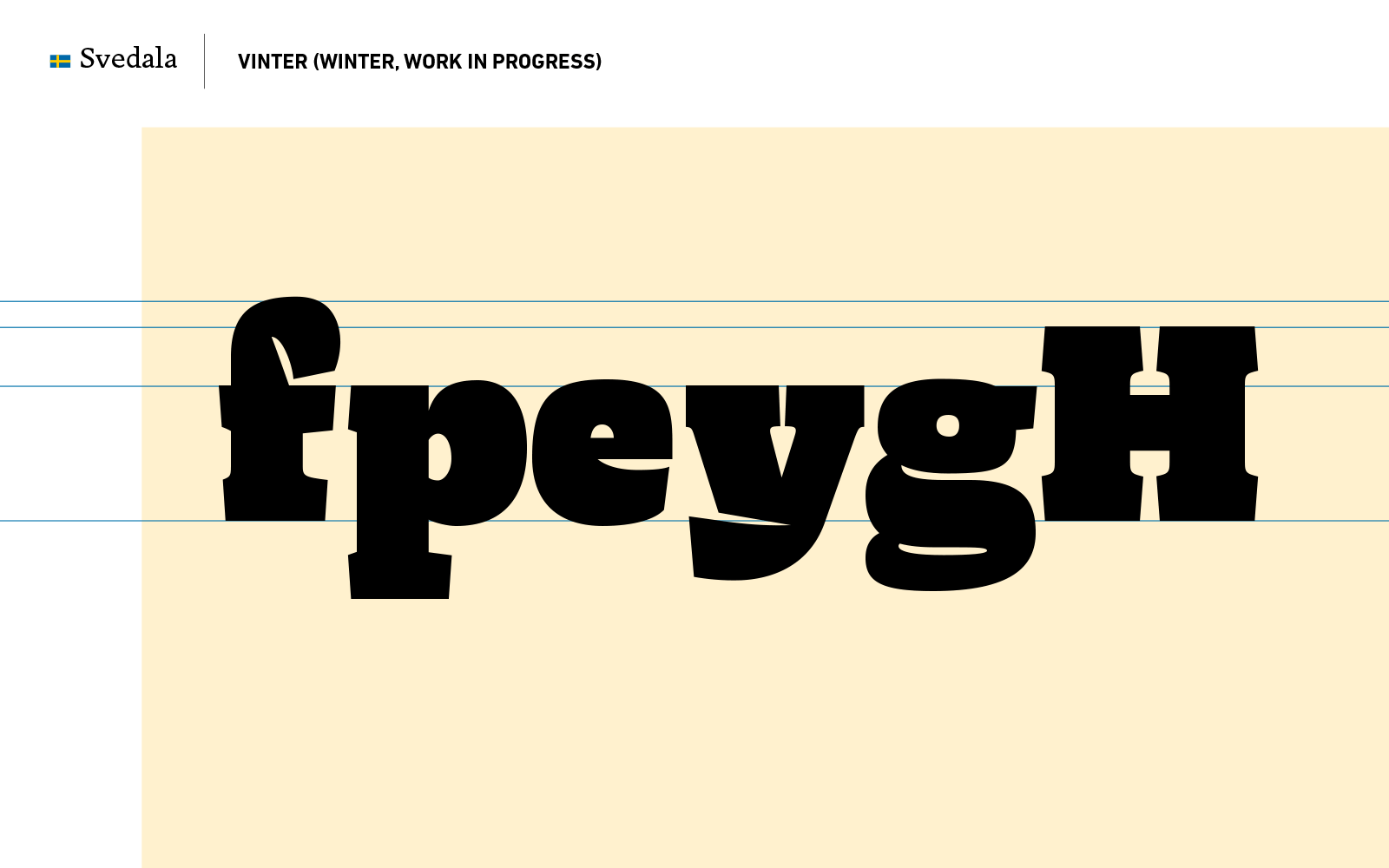
Svedala
Svedala is type family attempting to reflect the contrast between the two major seasons, winter and summer. Inspired by the national typeface Sweden Sans, I wanted to attempt on making a serif version.
In the north part of Sweden there’s about three weeks of night during winter. The sun basically never goes above the horizon. But when summer arrives, the very same parts of Sweden get about five weeks of daylight. The sun never gets below the horizon. The type family currently consist of three weights. Two display weights and one weight for text. Sommar (summer in Swedish) is a display typeface used to show how casual and the light summers are. Vinter (winter in Swedish) has way more blackness to it and talk to you about cracked ice, snow and the darkness. Vardag (weekday in Swedish) works well for paragraphs in a smaller size. Vardag still has some traces of calligrpahy in it. It’s named weekday beacuse we have those days all year around.
The name Svedala is a euphemism, like a substitute Swedish people sometimes use instead of using the real name.